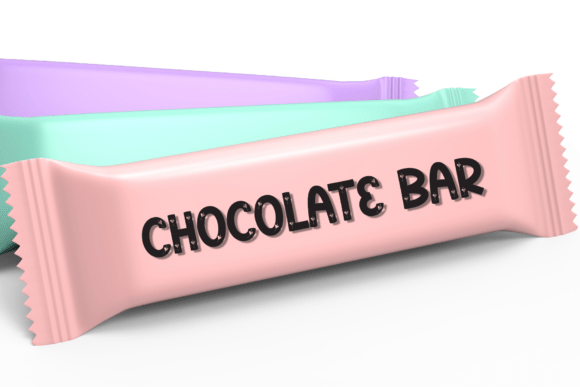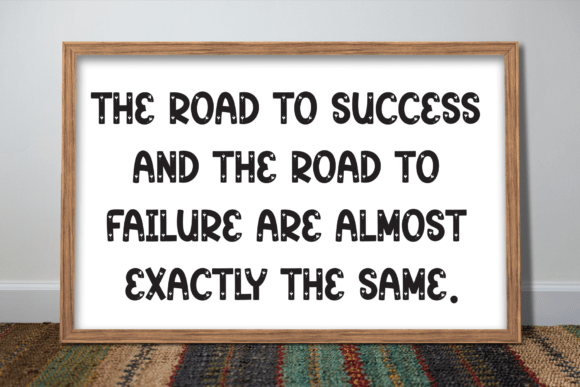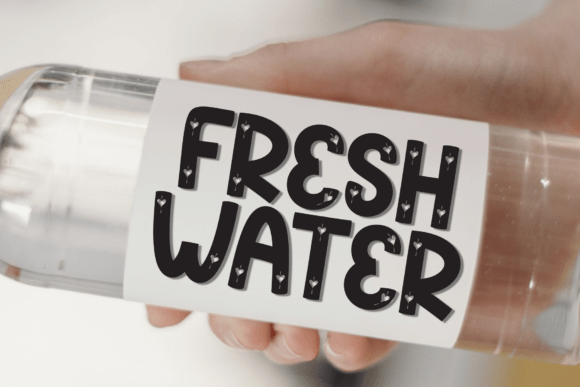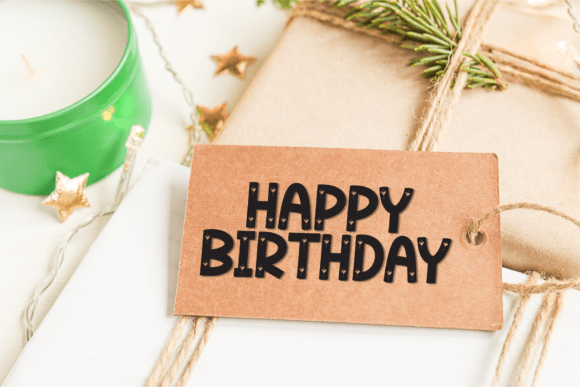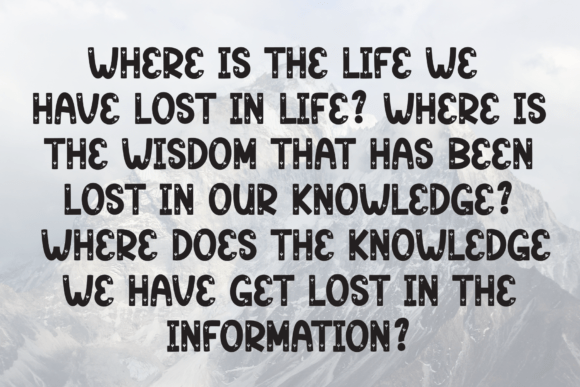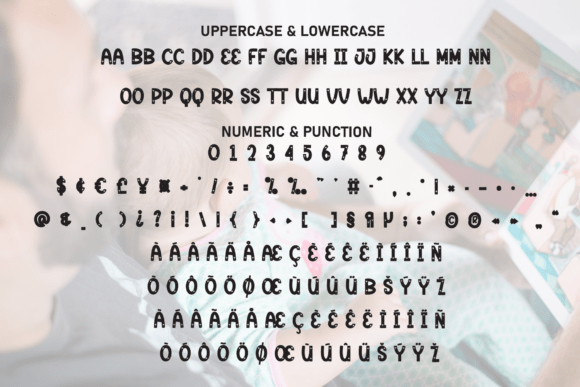
Introduction to Cupid Family Font
Introducing the enchanting and approachable handwritten display font, skillfully crafted to bring a dash of joy to your creative projects.
Embodying a delightful charm, this font is the picture-perfect choice for composing wedding invitations, greetings cards, and any design craving a spritz of fun Its endearing personality seamlessly adds a whimsical touch, transforming ordinary text into a memorable experience.